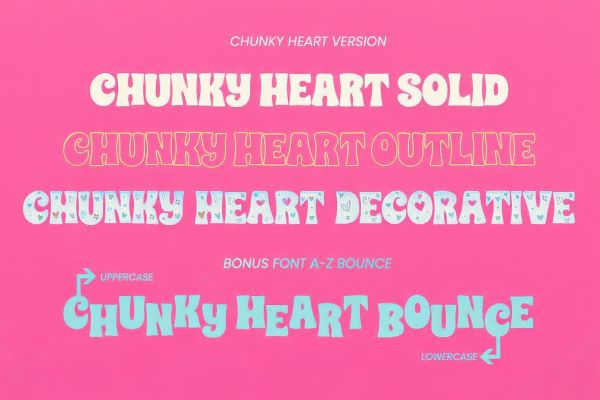
Chunky Heart Font
Chunky Heart Font is a Groovy Font by A Type Font that offers four different styles and a warm, playful energy that expresses love, affection, and childhood excitement through every character. Its bold, all-caps construction carries that retro groovy warmth that makes posters, sincere messages, and festive designs feel genuinely joyful and impossible to ignore.